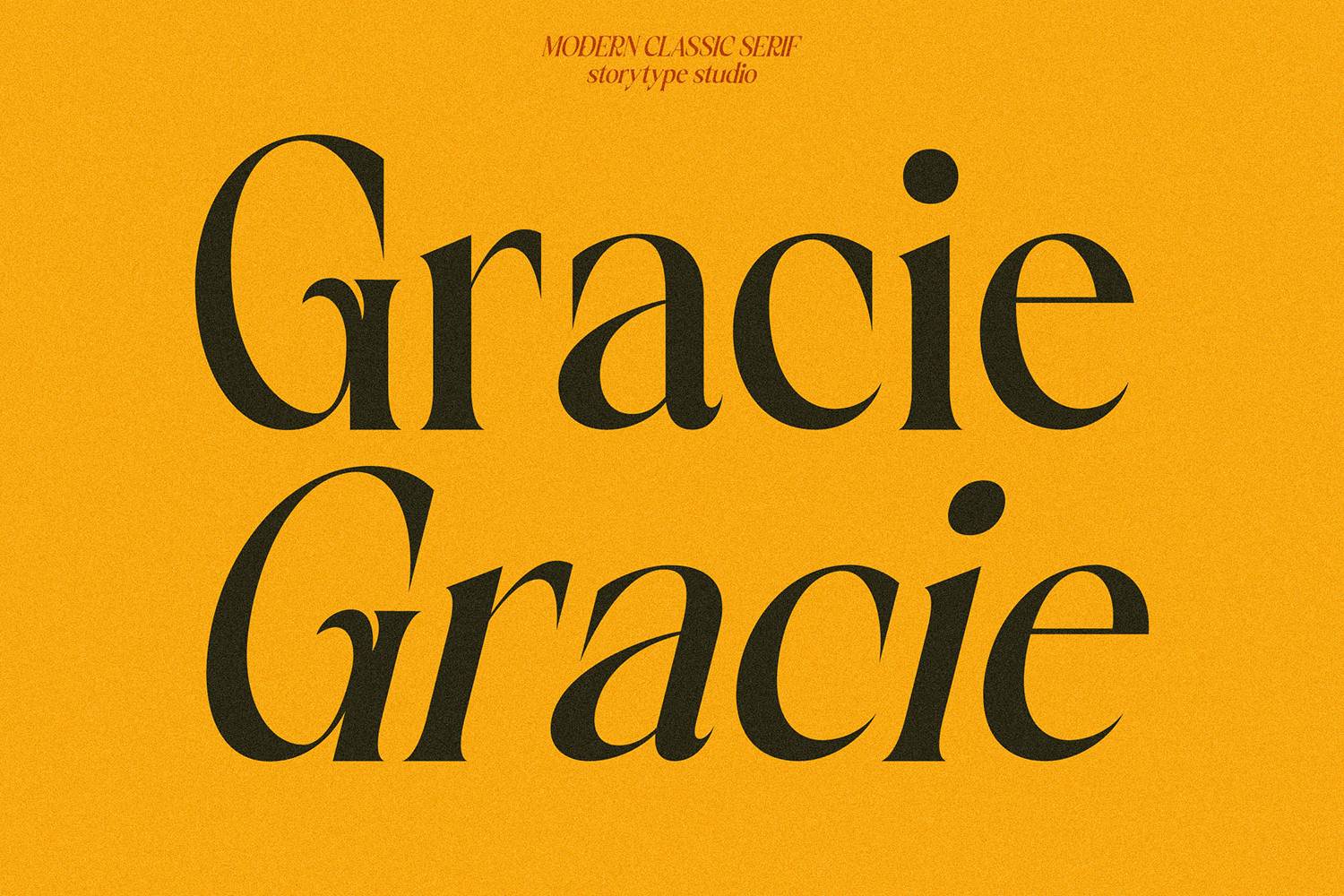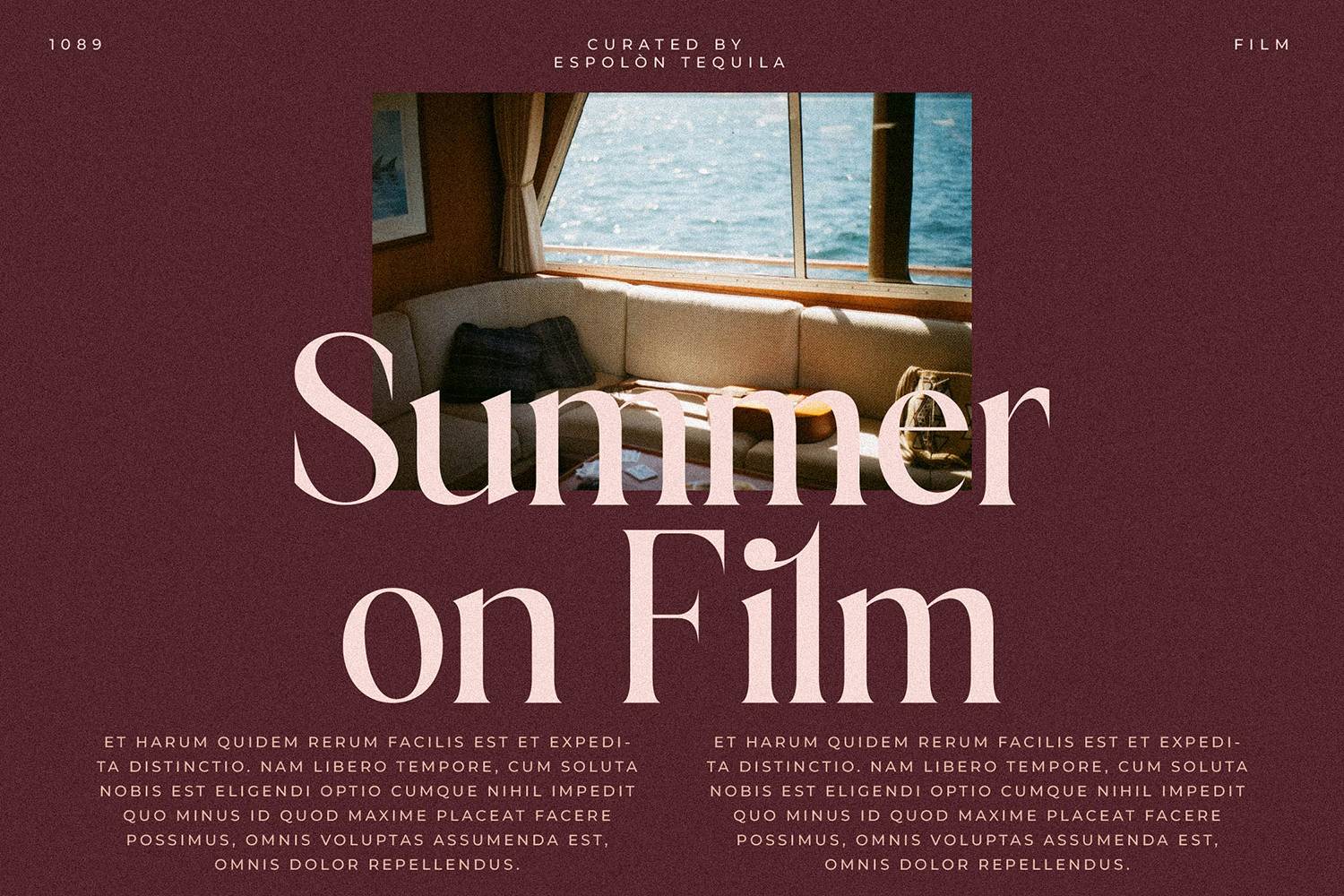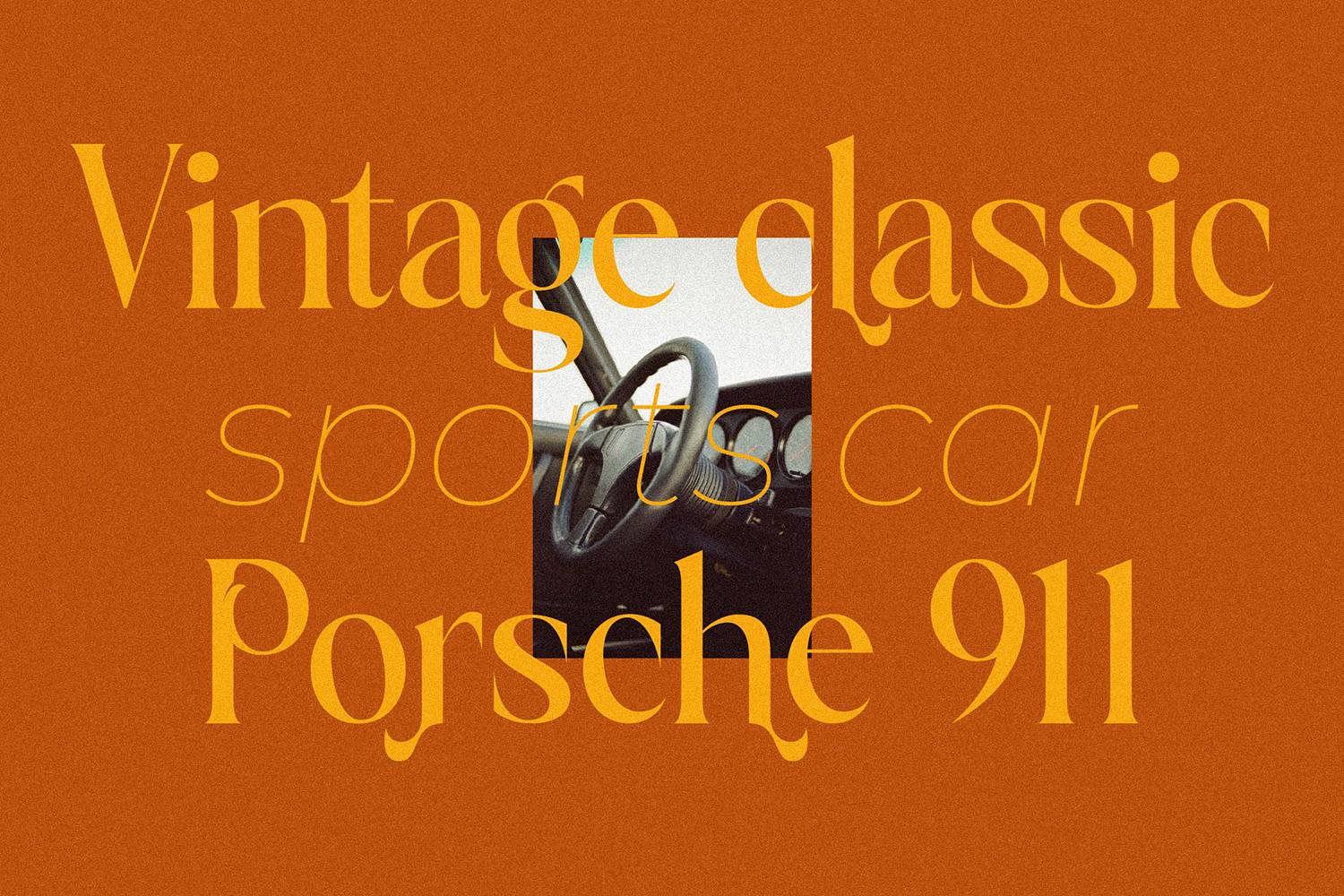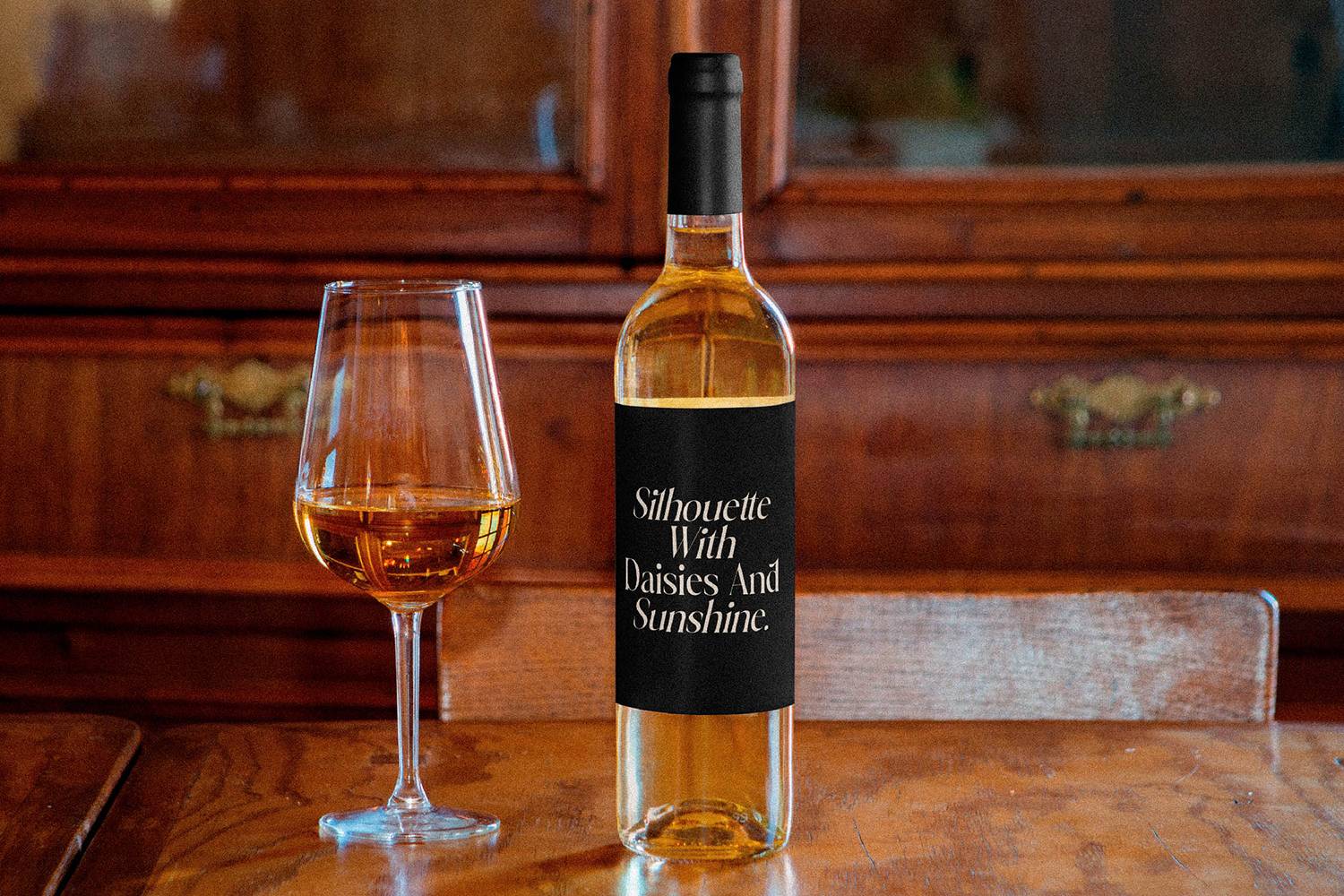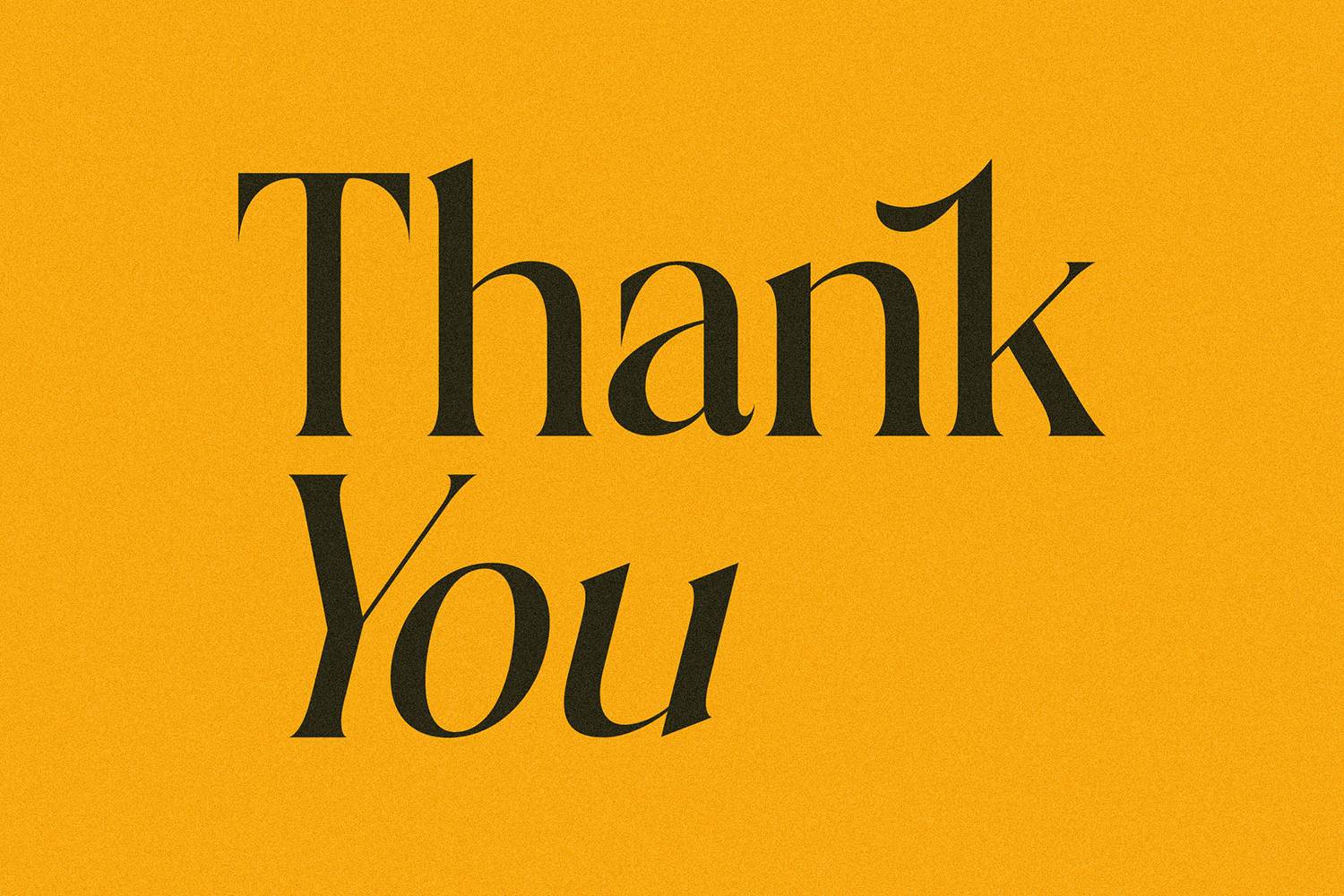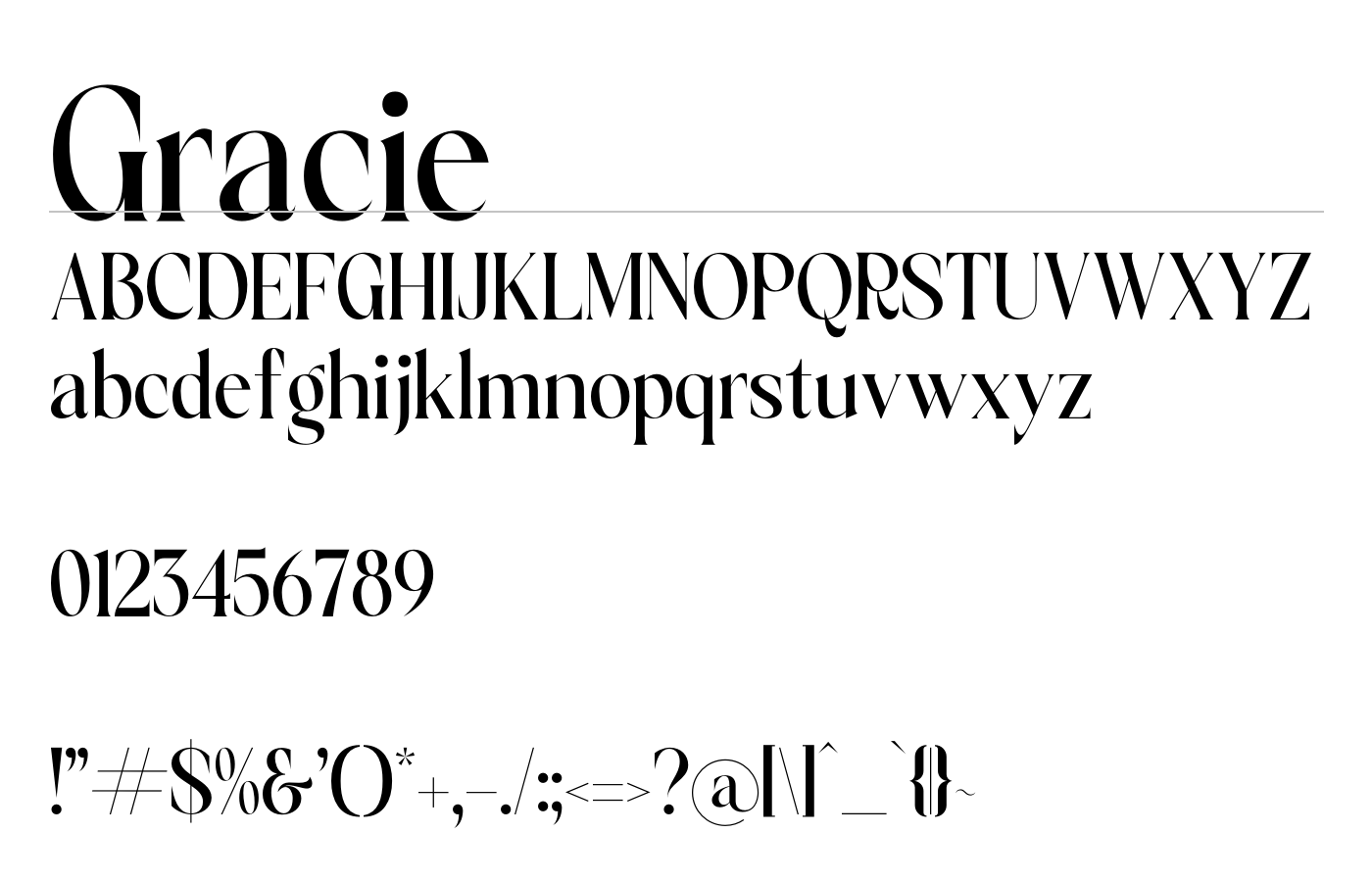
Gracie is an elegant Didone-style serif font characterized by its high contrast between thick and thin strokes and refined, sharp serifs. With its tall, narrow letterforms and sophisticated curves, it conveys a luxurious, classic feel ideal for fashion branding, editorial headlines, and upscale packaging. Its graceful design lends itself well to projects seeking a timeless, stylish, and polished look.
Gracie Font
About Gracie Font